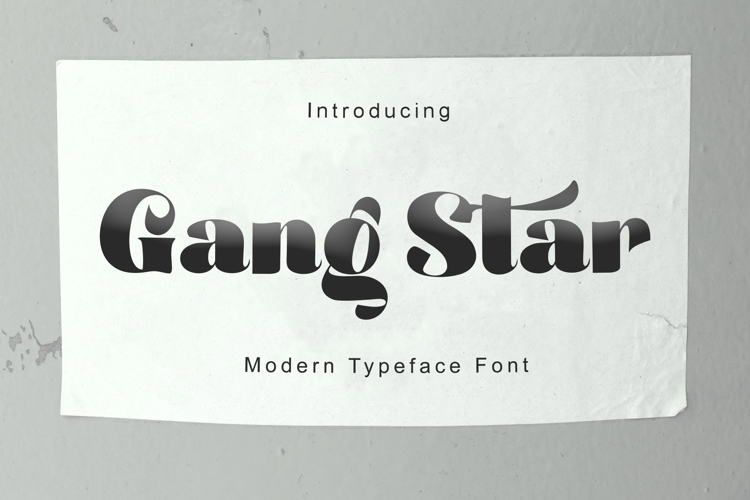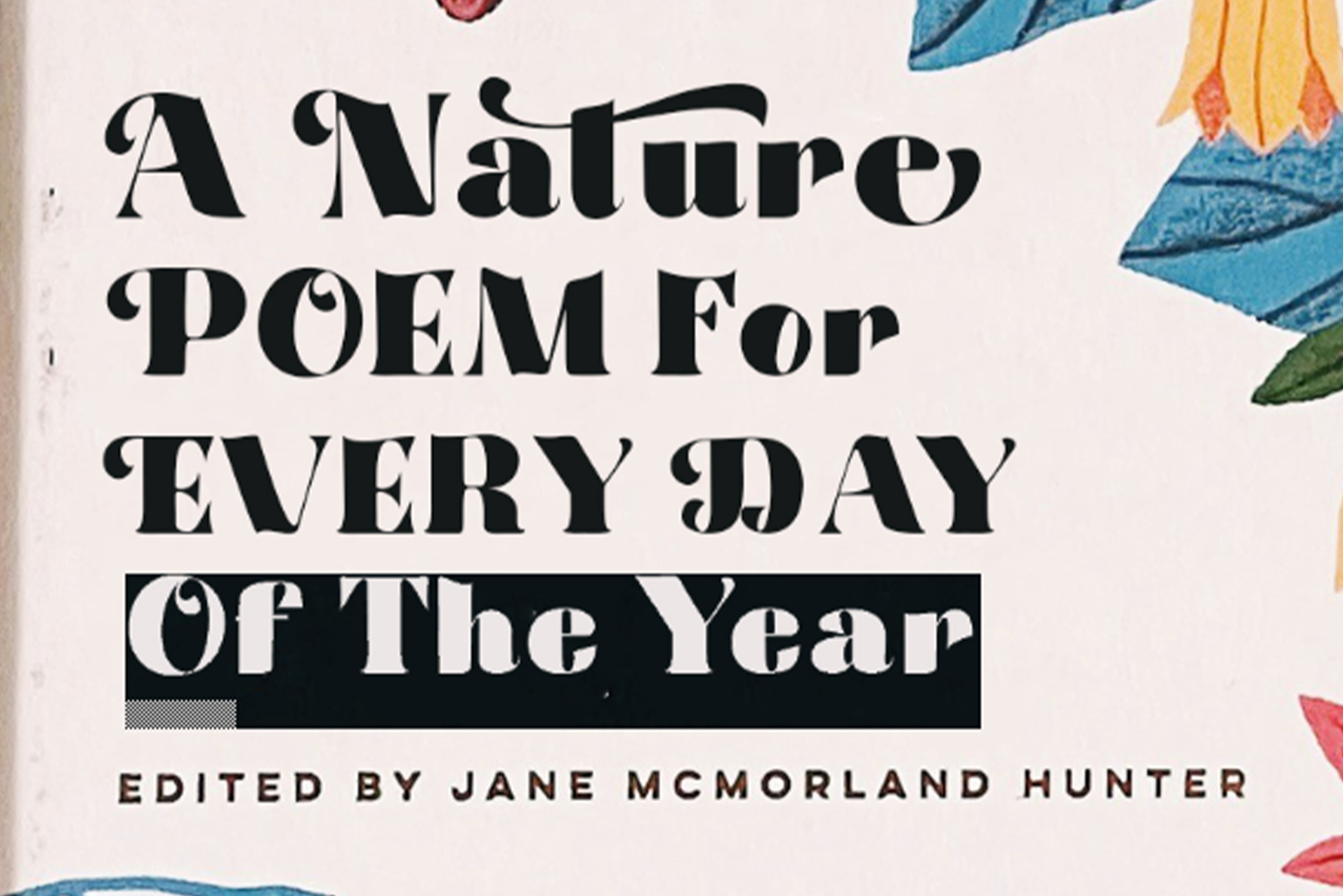
Make a statement with Gang Star, a typeface designed for the bold. Featuring a rhythmic flow and dramatic silhouettes, this font bridges the gap between retro groovy vibes and futuristic minimalism. Its heavy weight and elegant tapers make it an ideal choice for streetwear labels, album covers, and lifestyle magazines looking for a touch of "modern-vintage" flair.